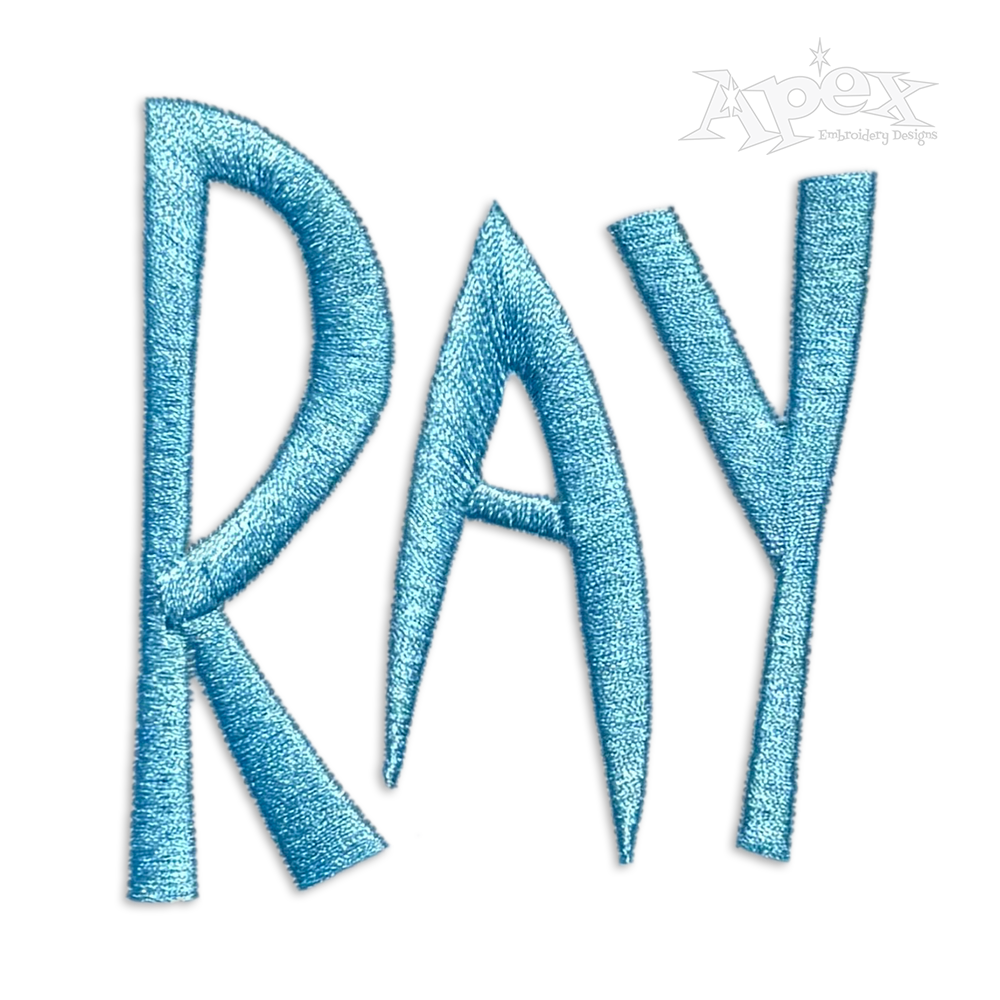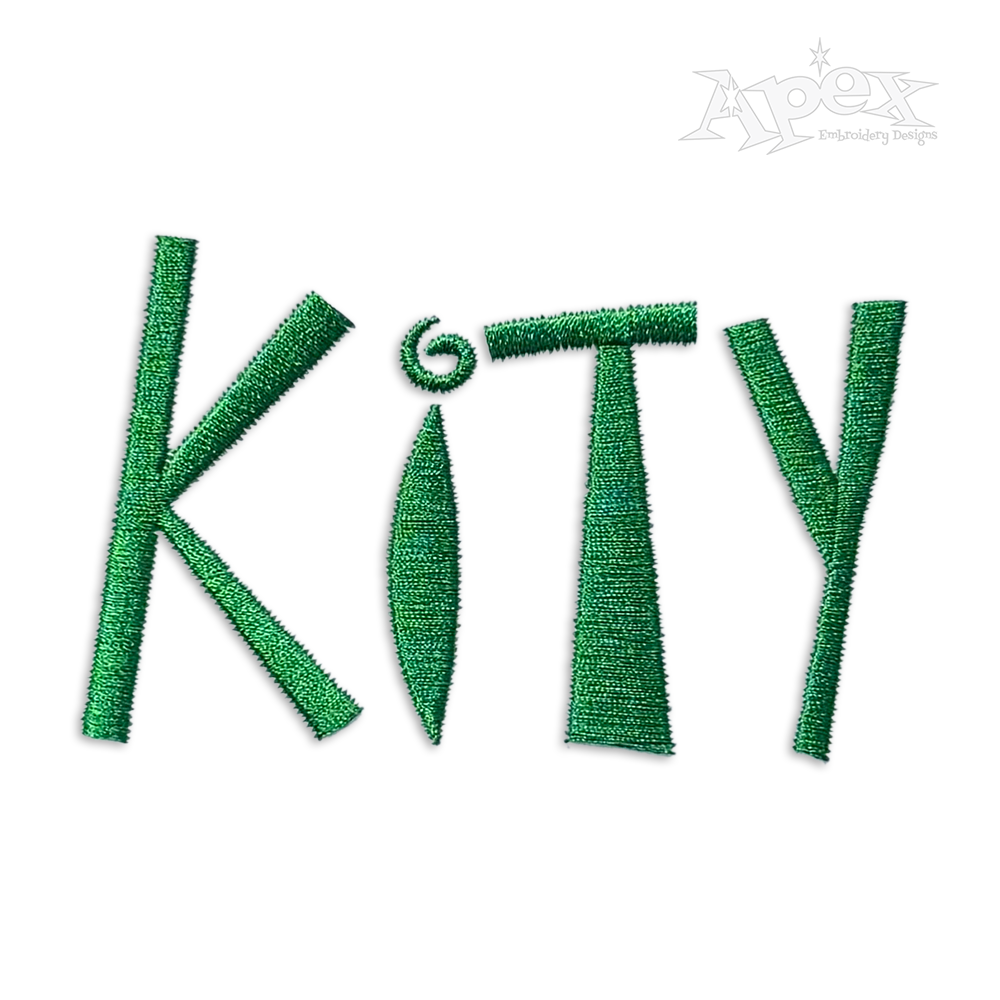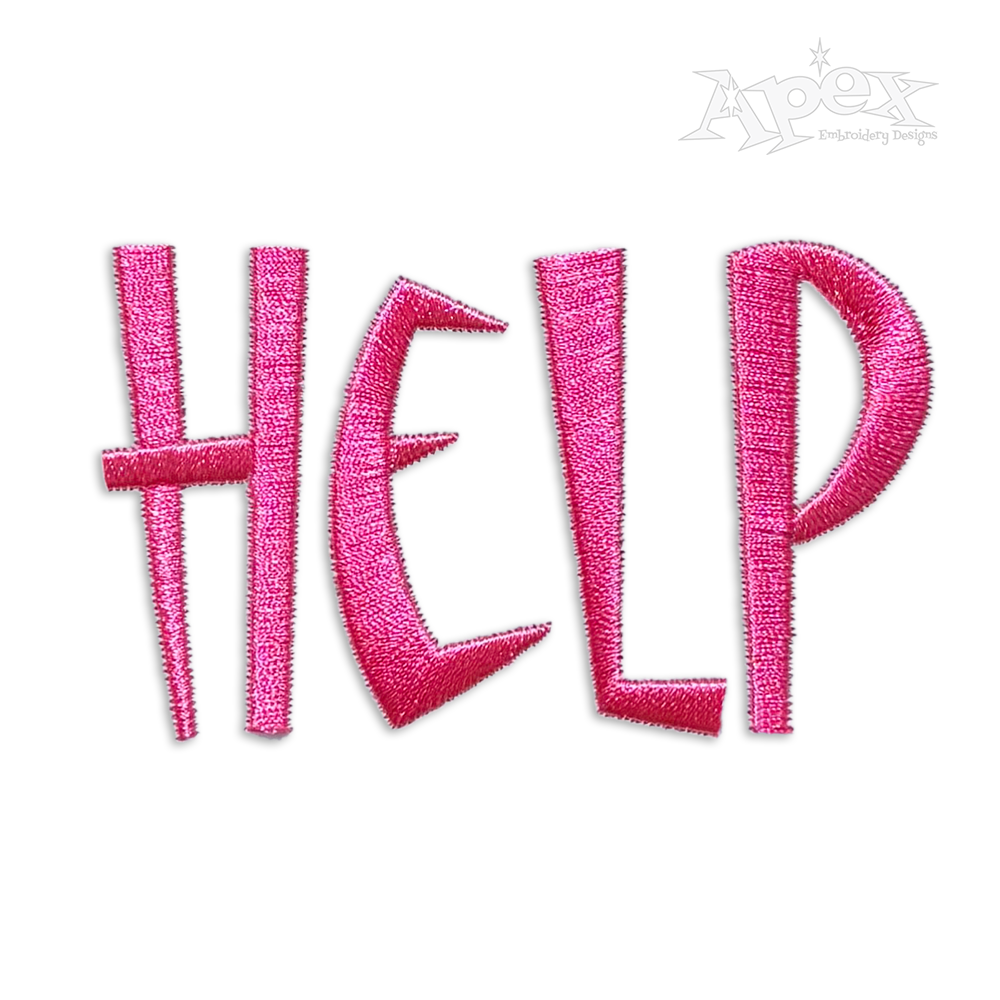
Matisse Embroidery Letters Font
Inspired by the organic contours, painterly brushstrokes, and rhythmic paper cut-outs of twentieth-century modernist masters, the Matisse Embroidery Letters Font brings an effortless, sculptural grace directly to the hoop. When translating these gestural curves into tactile stitch files, our digitizing atelier sought to move beyond rigid, conventional typography. Every glyph captures the gentle pull and luminous play of light across thread, instantly elevating classic monograms into bespoke, gallery-worthy expressions across fine textiles.
- 2-Inch Upper Case Alphabet: Expressive, artfully proportioned capitals ideal for standalone monograms and focal initials.
- 2-Inch Lower Case Alphabet: Balanced, poetic companion letters designed to harmonize effortlessly alongside uppercase characters.
- 2-Inch Numbers (0–9): Distinctive numeric glyphs tailored for commemorative dates, anniversary milestones, and house numbers.
- 2-Inch Punctuation & Symbols: A curated suite of coordinating accents and marks to complete bespoke names and phrases.
Matisse Craft & Letterform Details
True embroidery artistry lives in the subtle engineering beneath the surface. For the Matisse letterforms, our digitizers meticulously mapped out custom stitch inclinations that follow the natural sweep of a hand-painted stroke. Rather than relying on uniform, mechanical satin paths, each curve swells and tapers with calculated intent, creating rich optical depth without unnecessary bulk.
We carefully calibrated underlay foundations to secure diverse textile weaves—from loosely woven washed linen to velvety soft terry cloth—ensuring pristine edges that resist puckering or fabric distortion. Satin density has been harmonized across every turn and crossing point, preventing thread build-up while preserving a supple, featherlight hand that moves fluidly with the fabric. The result is a satin stitch alphabet that feels alive, refined, and endlessly inspiring beneath the needle.